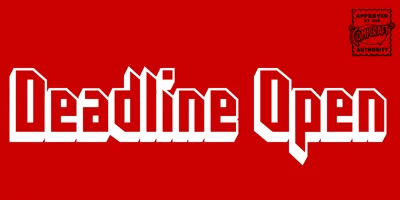
CC Deadline Variable Font
CC Deadline Variable Font is a bold, high-impact typeface designed to command attention and deliver messages with urgency and style. With a condensed, editorial-inspired structure and powerful letterforms, this variable font is ideal for magazine headlines, posters, album covers, web banners, and high-energy branding projects.
What sets this font apart is its ability to flex with intensity—thanks to its variable capabilities. You can fine-tune the weight to create dramatic contrasts, from razor-thin urgency to heavy, authoritative presence—all from one flexible font file. It’s perfect for designers who want dynamic visual storytelling without sacrificing efficiency or cohesion.
Despite its assertive aesthetic, CC Deadline maintains excellent legibility, even in compact layouts or fast-paced digital environments. Its sharp angles and condensed proportions give it a sleek, editorial feel while still feeling modern and aggressive—making it a favorite for music, fashion, or pop culture-inspired content.
With CC Deadline, every word becomes a headline—loud, clear, and impossible to ignore. Use it when your message needs to hit hard and look sharp.